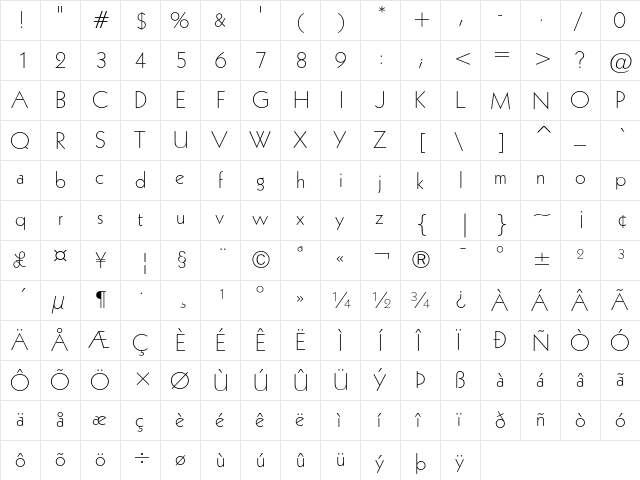
Geometric 231 Light Font Preview
Geometric 231 Light
Geometric 231 Light Font Details
Design Context for Geometric 231 Typeface
Geometric 231 offers clean, dependable letterforms without strong stylistic allegiance, making it a practical choice for designers who need flexibility. The delicate stroke weight brings airiness and refinement to layouts.